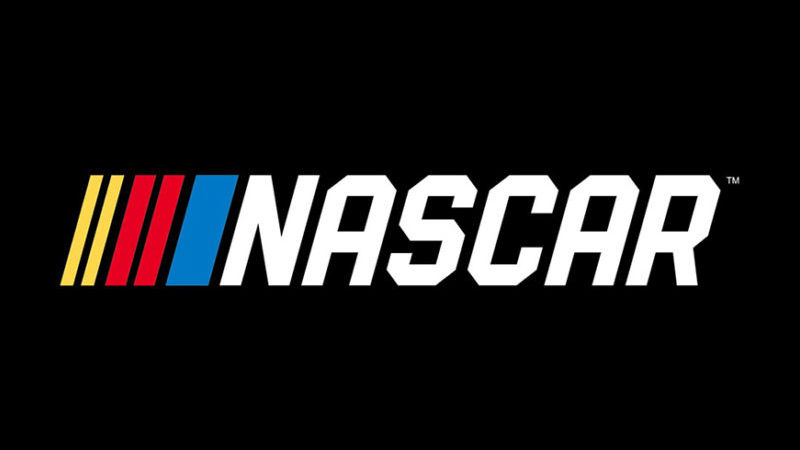
Are you looking car racing fonts? Introduce Nascar Font Family by ITC Company.
This is a sans serif font that based on the Nascar Logo. Designed by an auto racing car private company to use it as their branded font. This company was founded by Bill France Sr. in 1948. Their headquarters are in Daytona Beach, Florida, United States.
Within the download file is a Nascar font family named ITC Machine Font, created by Mr. Ronne Bonder and Mr. Tom Carnase. ITC Machine font is excellent for signage and other display applications.
Nascar Font Family
Author: ITC company